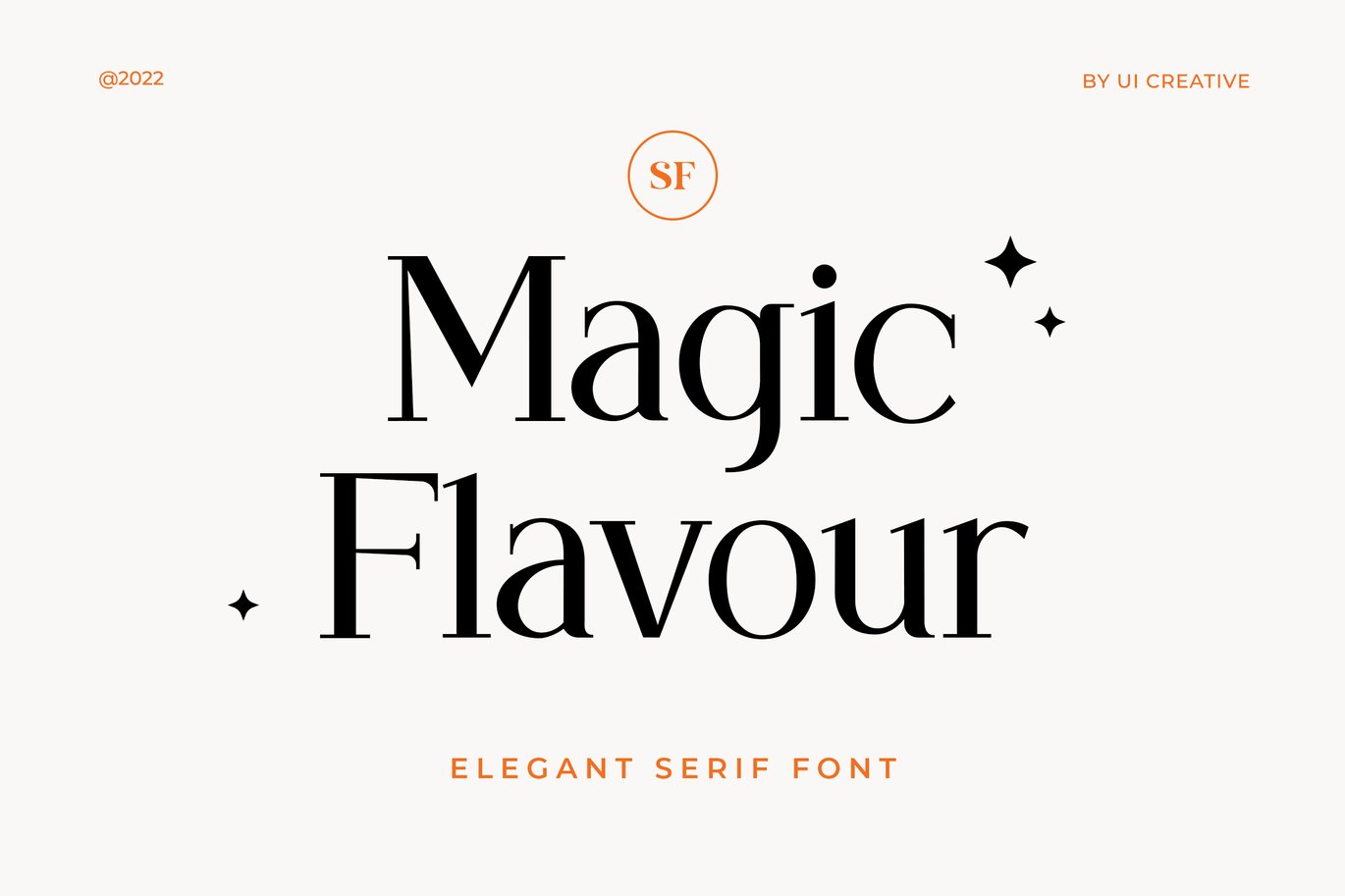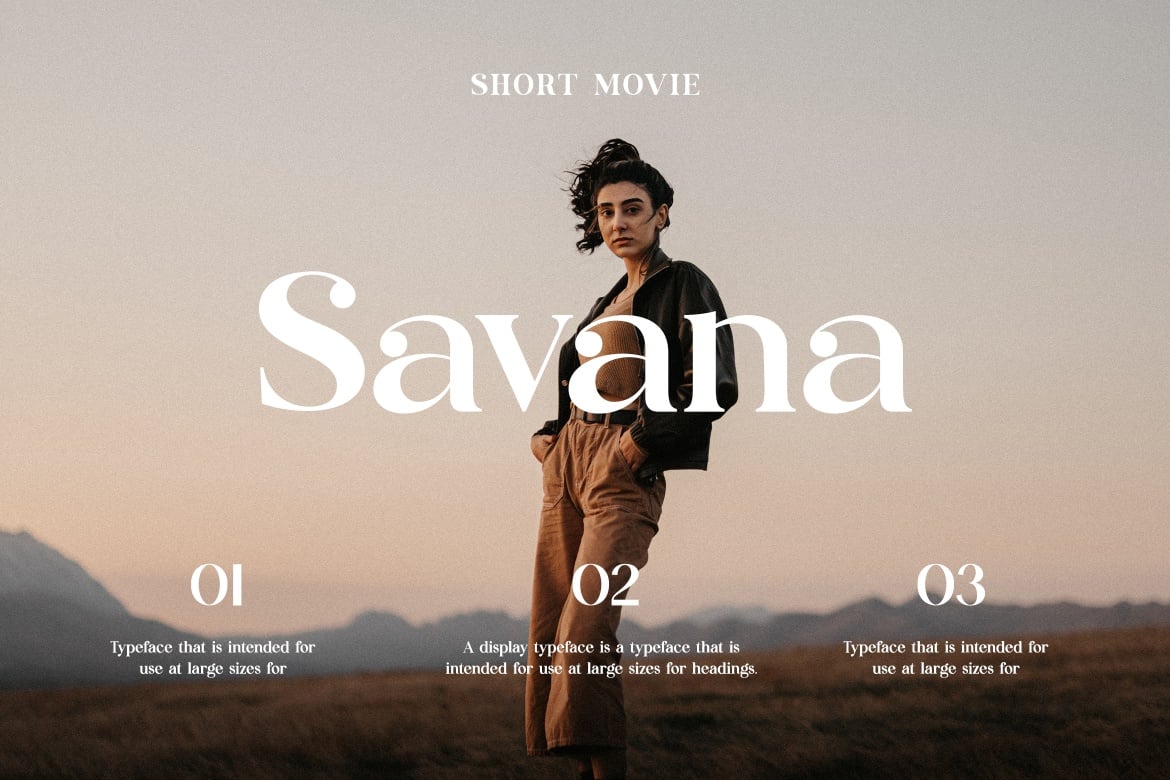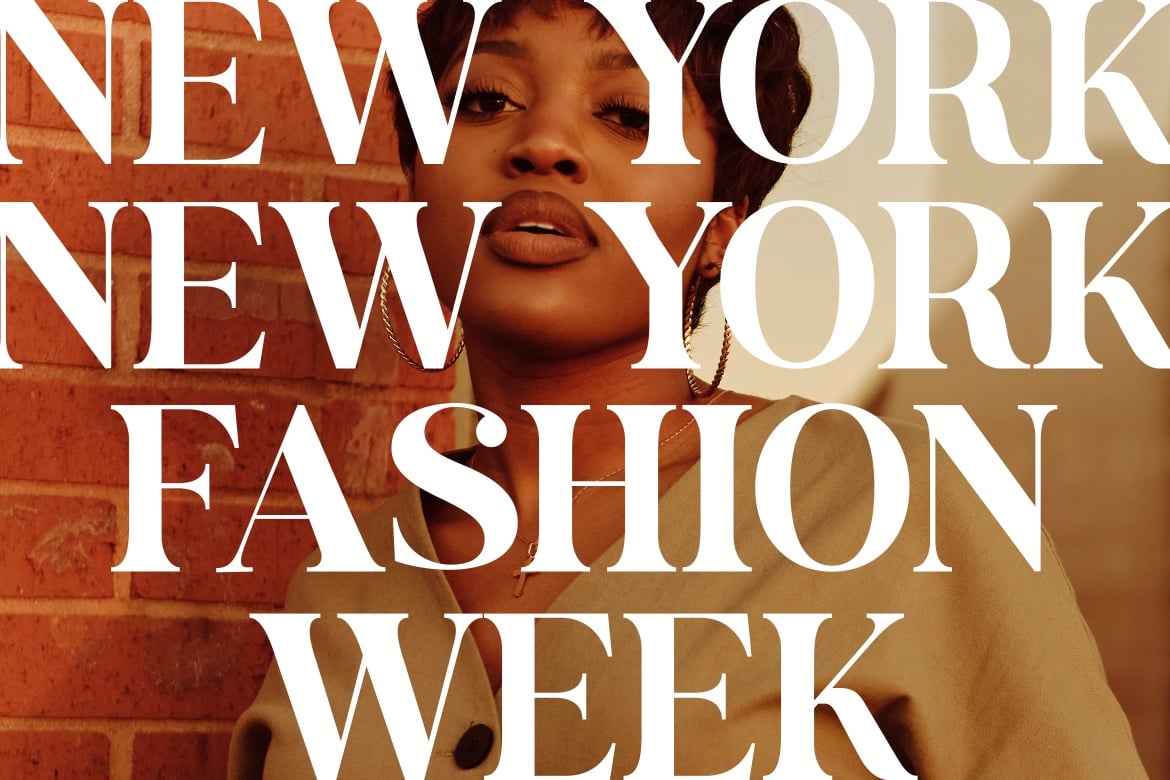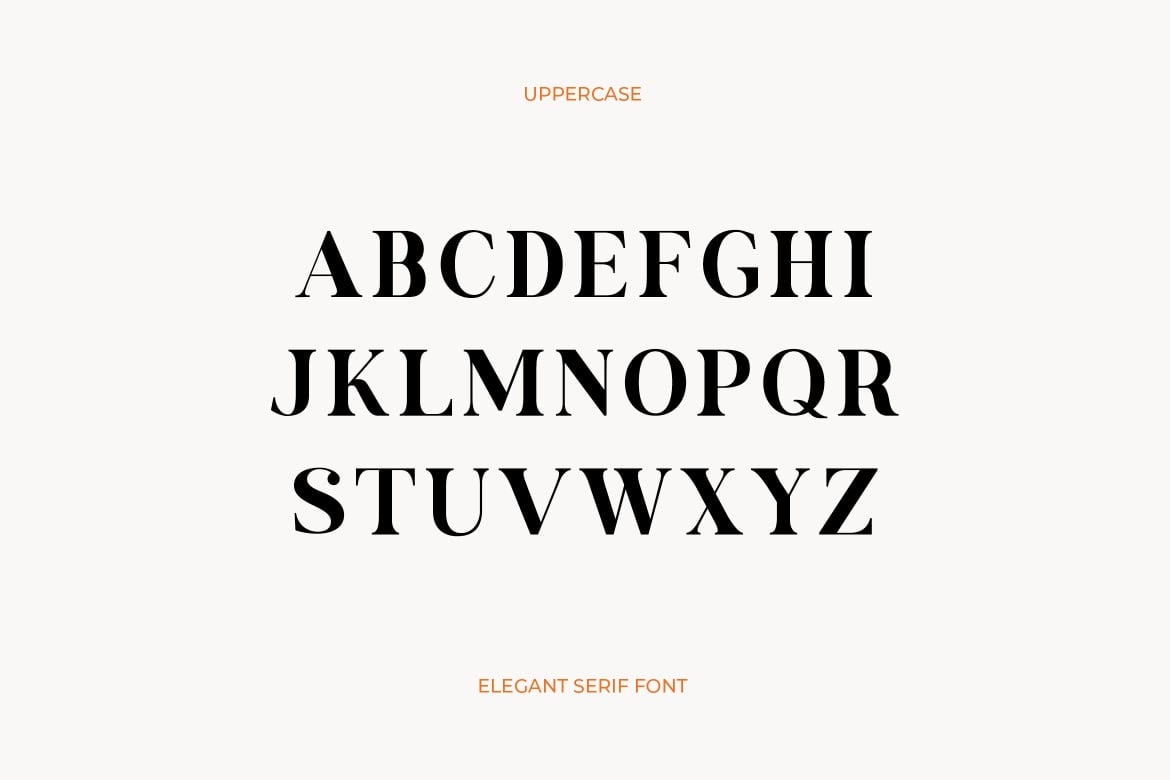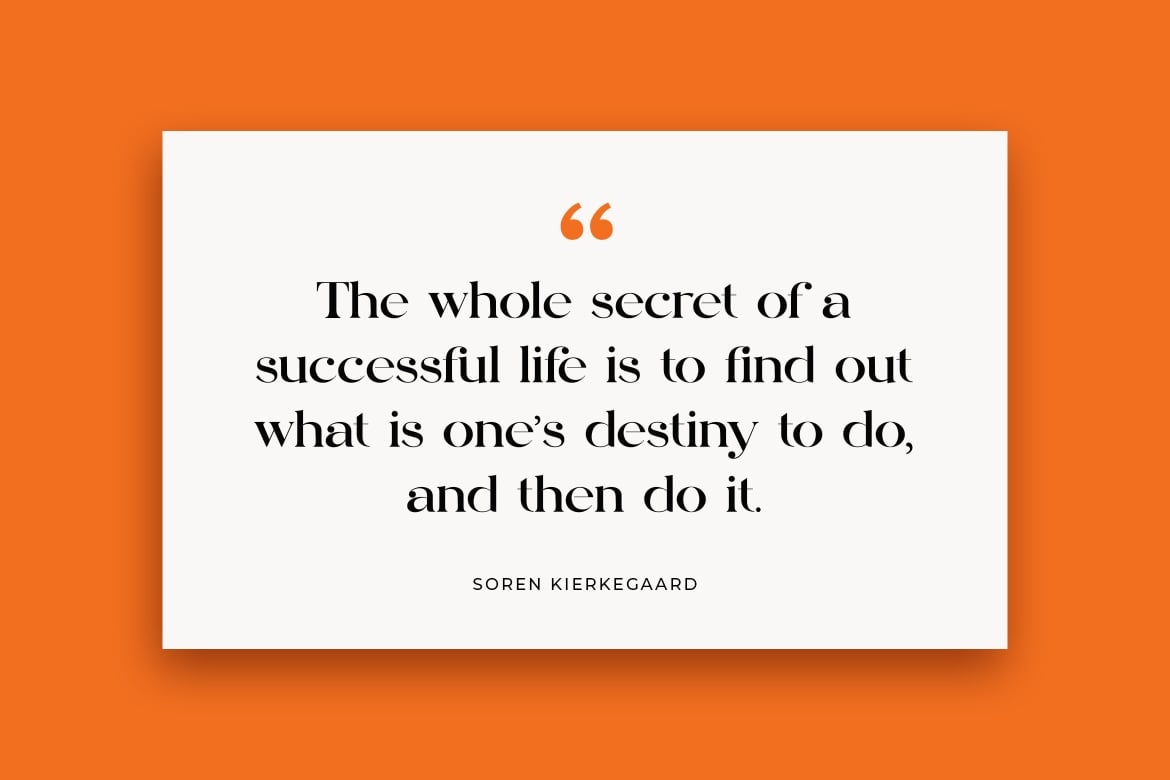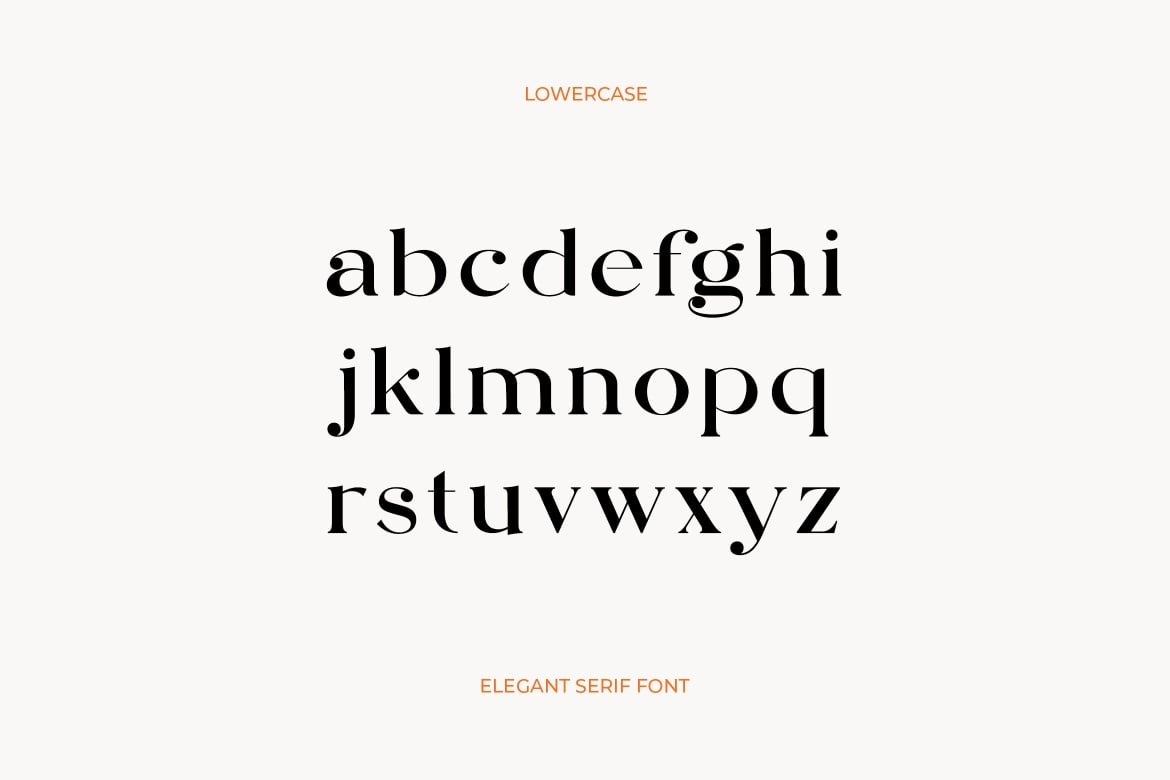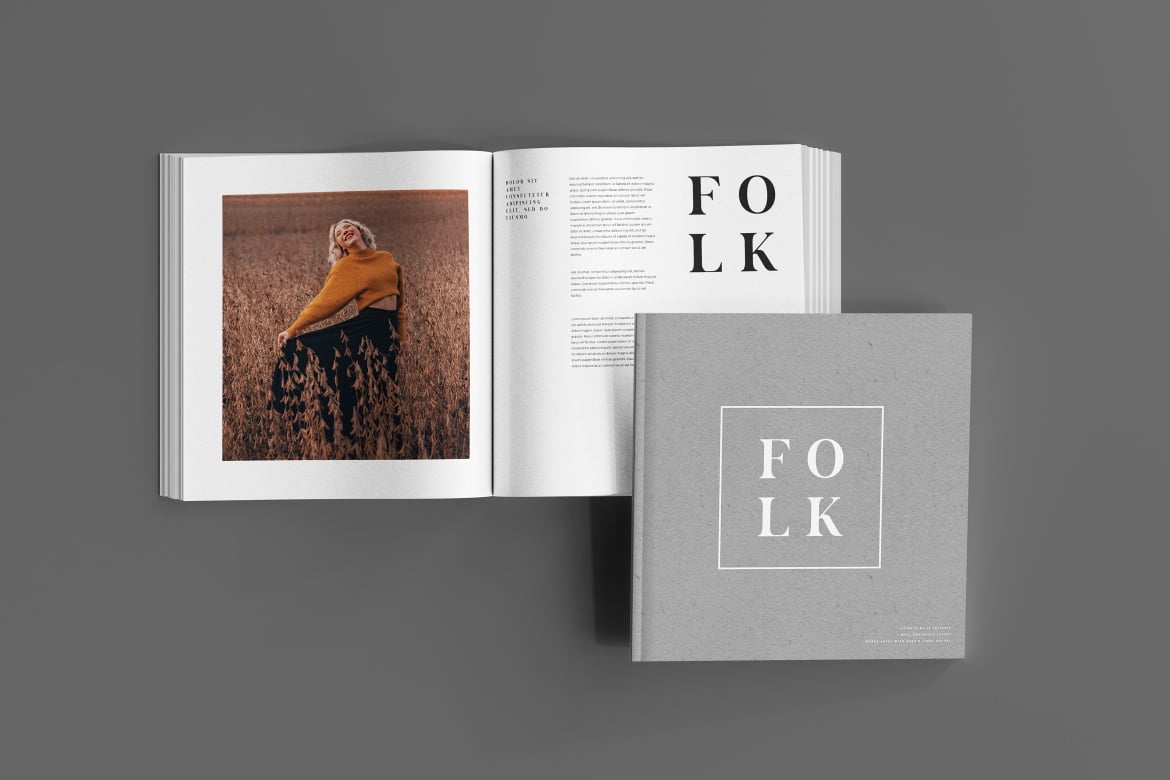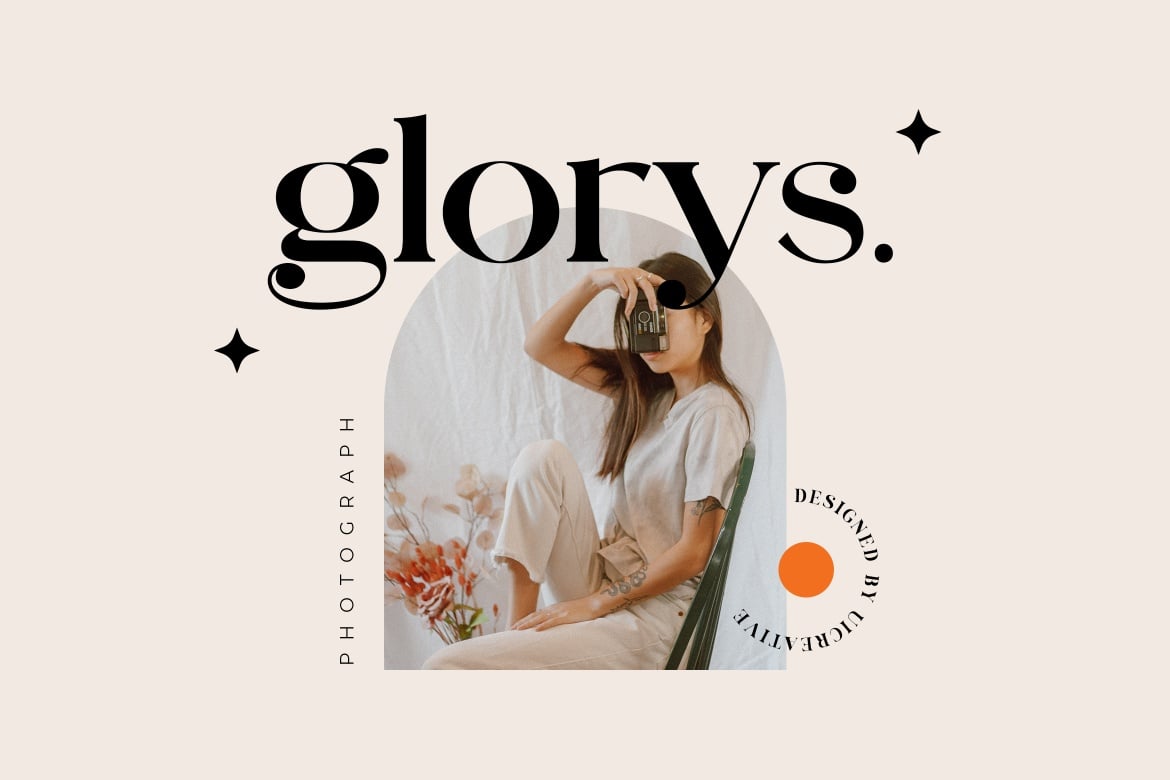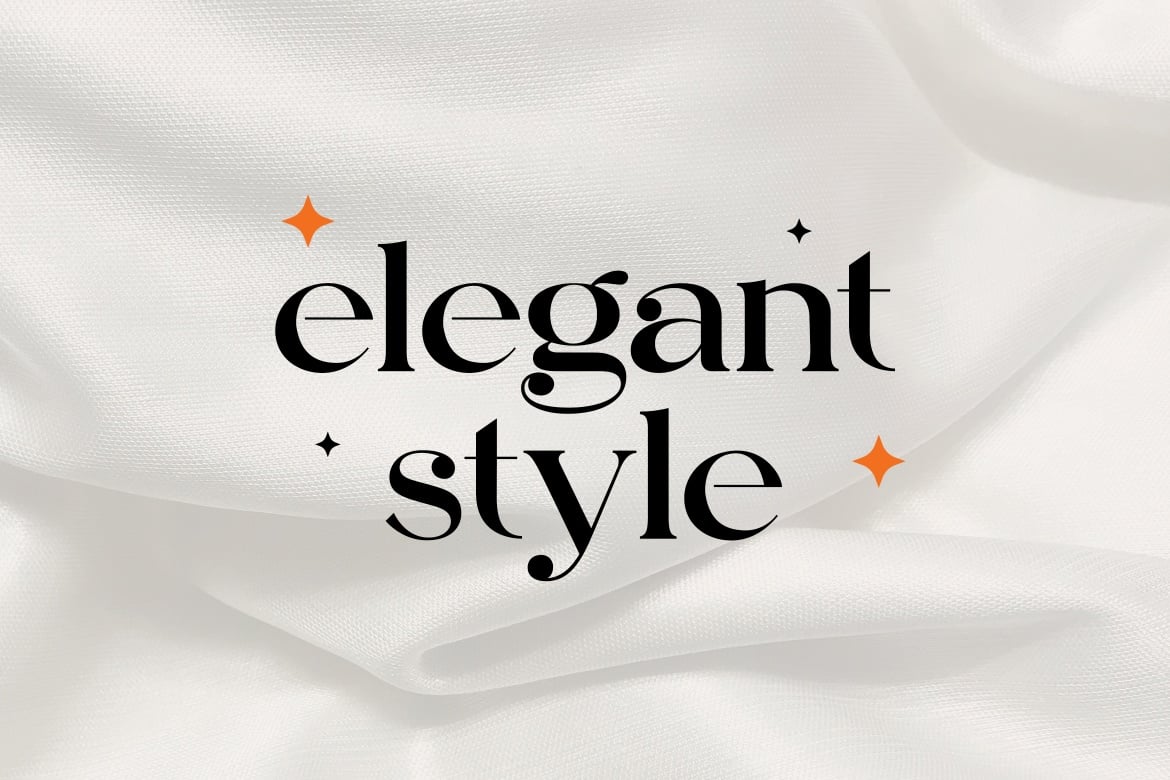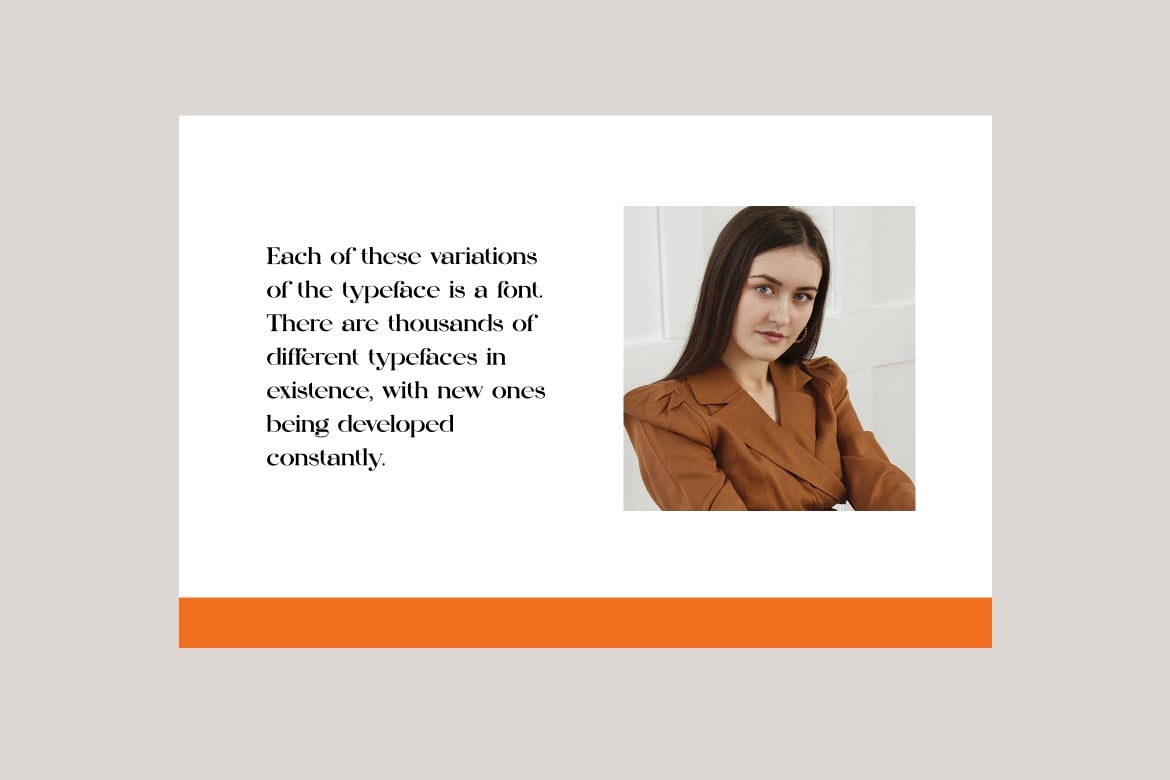
Magic Flavour Elegant Serif Font
Introducing our new product the name is Magic Flavour Elegant Serif Font. Modern Serif font that feels beautiful classy, elegant, and modern. This font is perfectly suited for a wide variety of projects, such as signature, stationery, logo, wedding, typography quotes, magazine or book cover, website header, clothing, branding, packaging design, and more. Also, fashion-related branding or editorial design displays both masculine and feminine qualities.